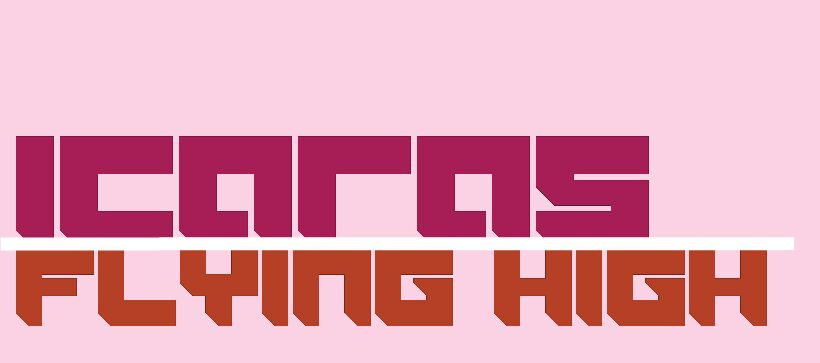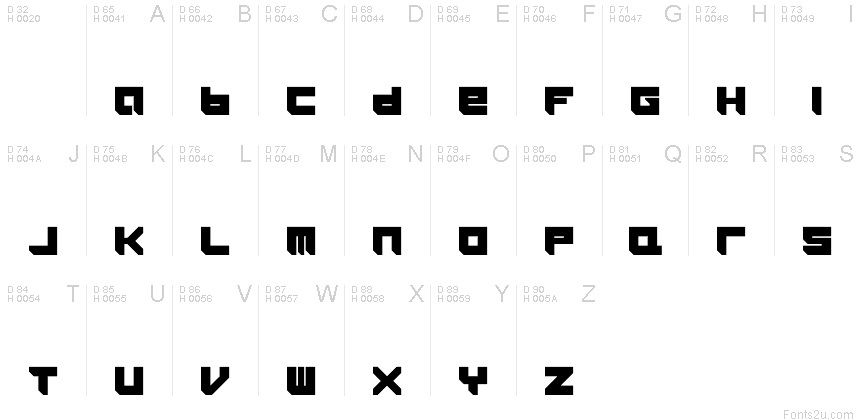
Icaras Regular
"Here is a font based on the logo and slogan 'Flying High' for Icaras, a team in the Wipeout series. The fonts feature the upper-case alphabet, and where examples are not provided, I've done my best to stick to the 'rules' of the letter structure.
Made in 2009.